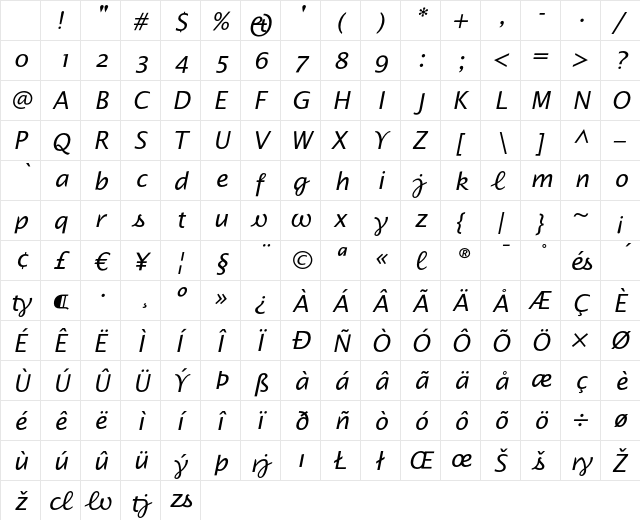
Alphabet4 Osf
Style: Osf
Design Context for Alphabet4
Alphabet4 is a composed and adaptable typeface that performs quietly and consistently across a wide range of design contexts.